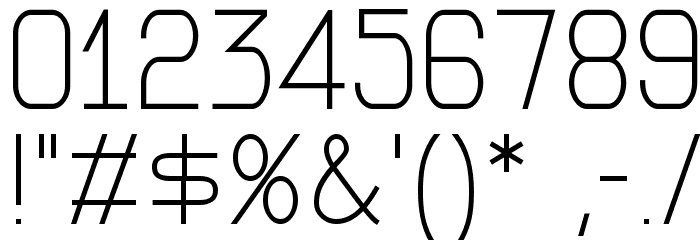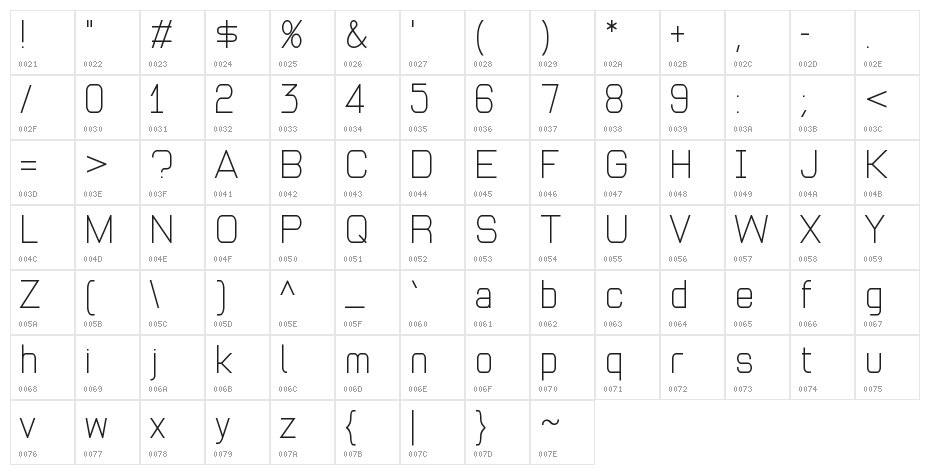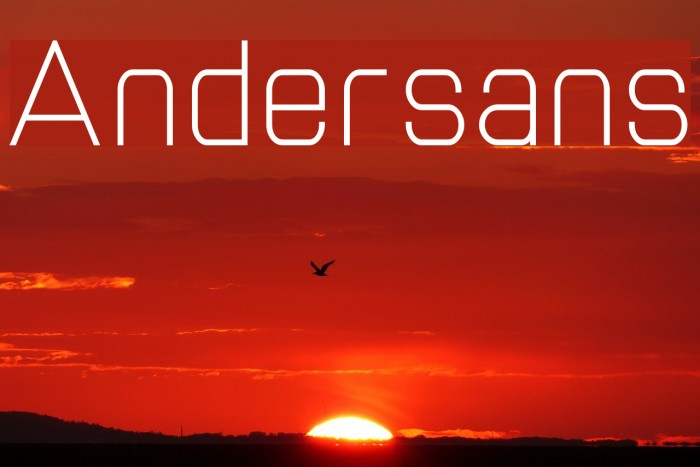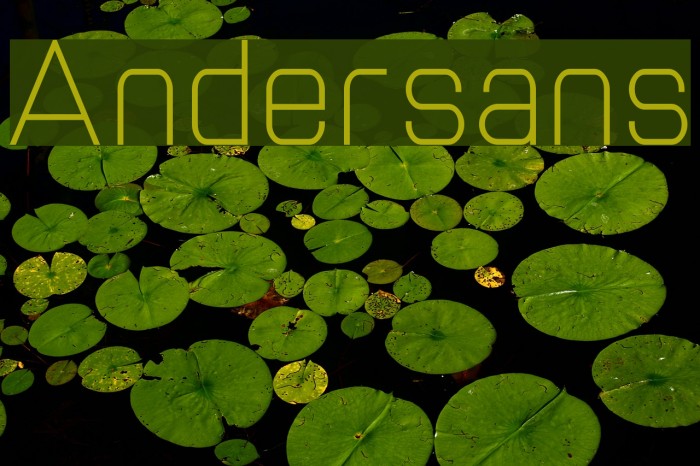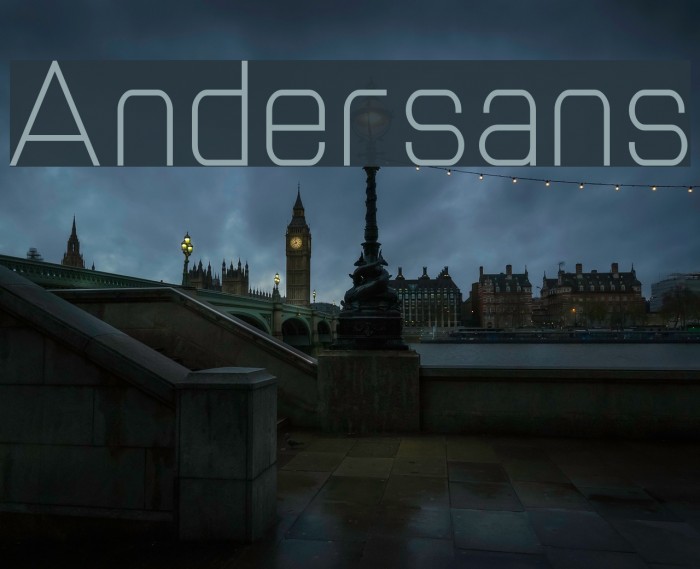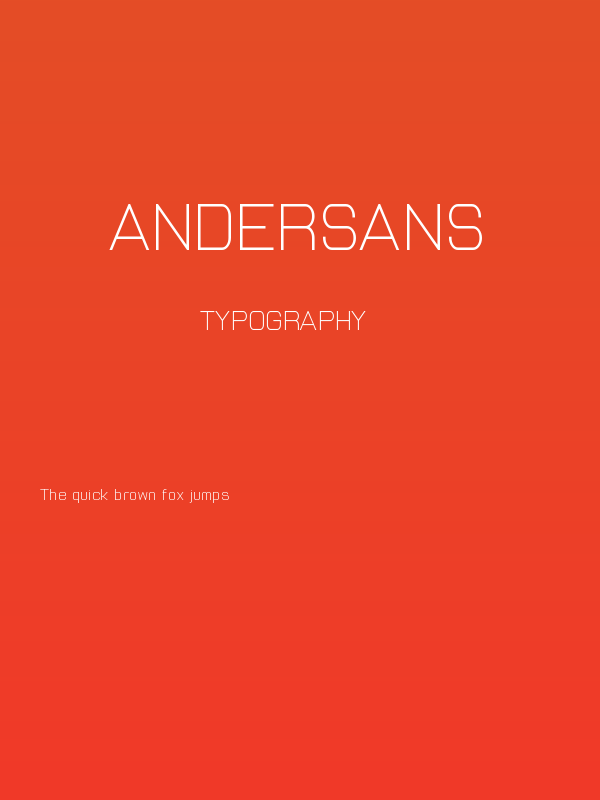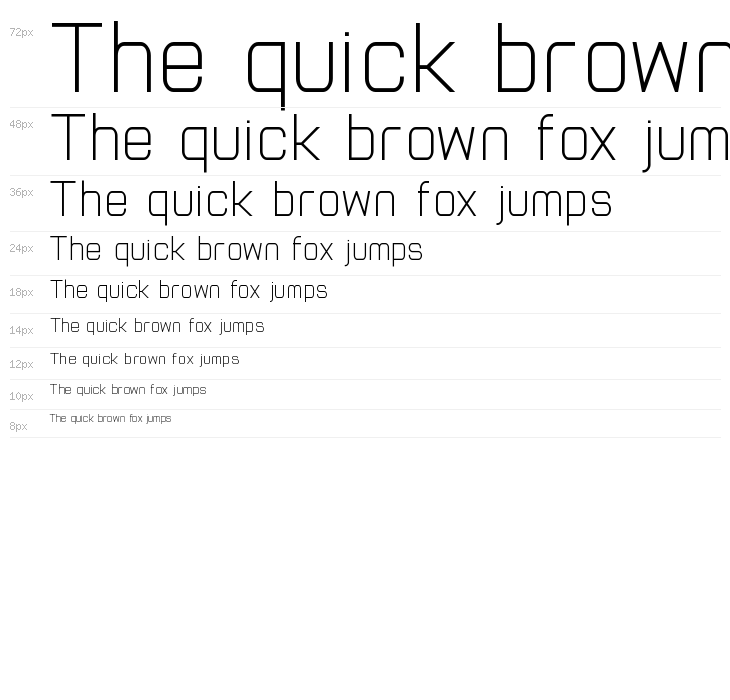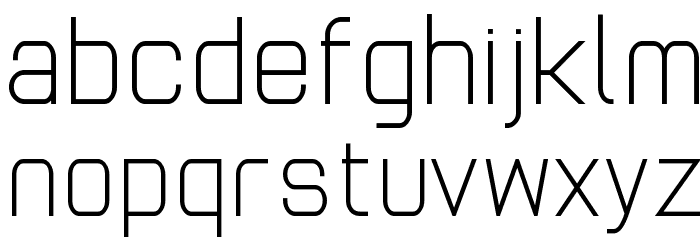
Andersans Font
Andersans Description
This font features a clean, geometric design with a modern aesthetic. The characters are constructed with consistent stroke widths, giving it a uniform appearance. Uppercase and lowercase letters maintain a harmonious balance, while the numerals are clear and easily distinguishable. The special characters are designed to complement the overall style, making it versatile for various applications. Its simplicity and clarity make it ideal for digital and print media, ensuring readability across different sizes.